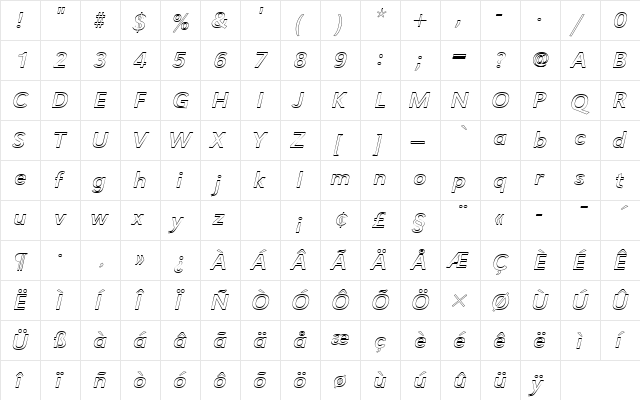
URWGroteskTRegItaOu1 Regular
Design Context for URWGroteskTRegItaOu1 Typeface
URWGroteskTRegItaOu1 takes a clean, functional approach — its unadorned letterforms prioritise legibility and work reliably across screen and print environments.
Font Pairing: Works well alongside a characterful serif or display font that can carry the expressive load while URWGroteskTRegItaOu1 handles the functional copy.
Pro Tip: Use URWGroteskTRegItaOu1 for UI labels, navigation, and short-form body copy where clean legibility is the priority.